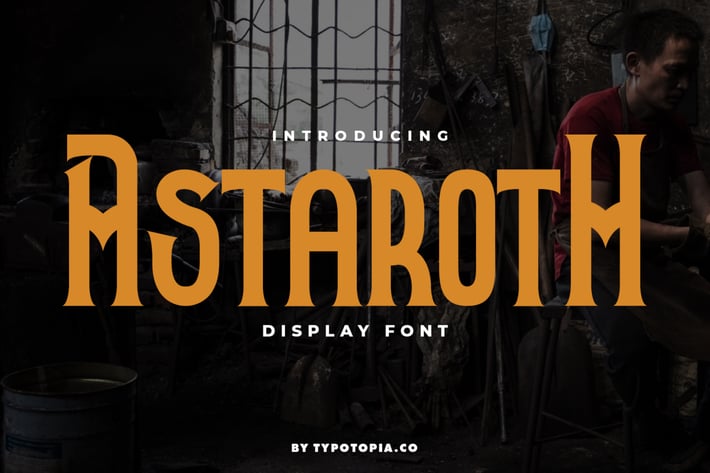
Astaroth Medieval Display Font
Introducing Astaroth Medieval Display Font. This perfect for the purposes of designing templates, brochures, videos, advertising branding, logos and more.